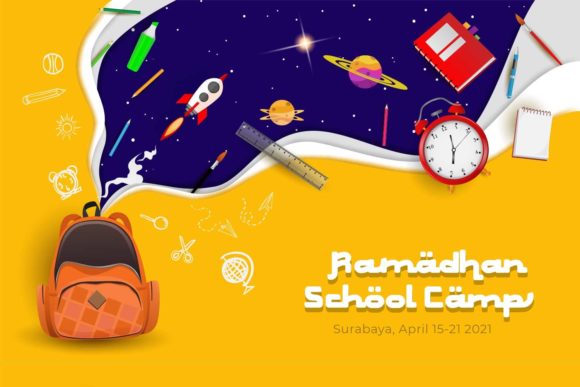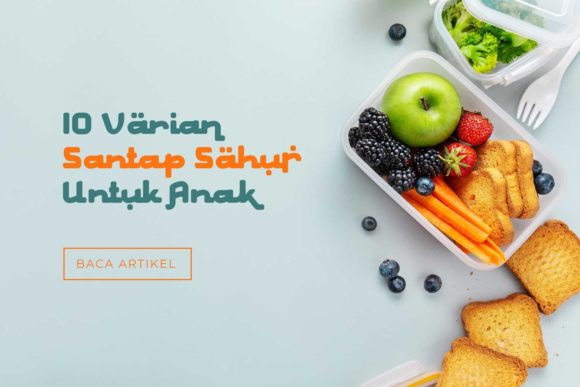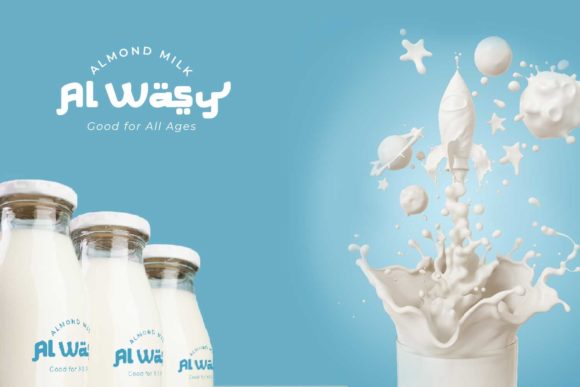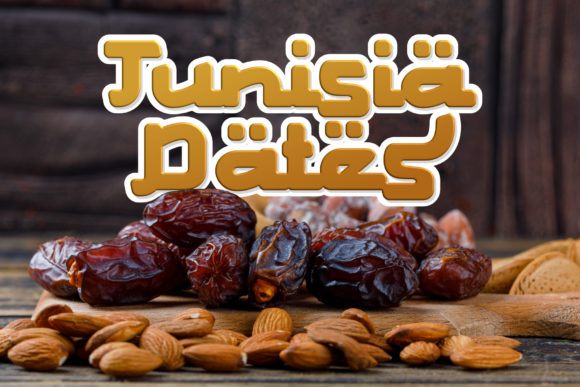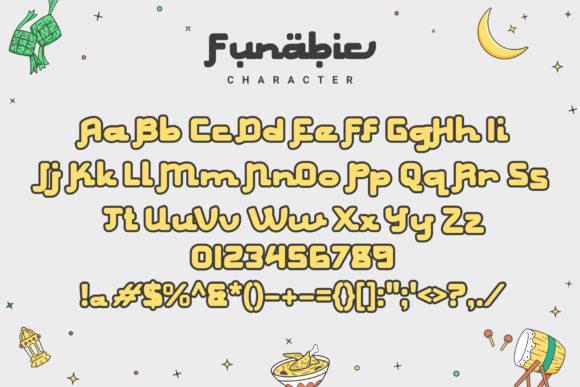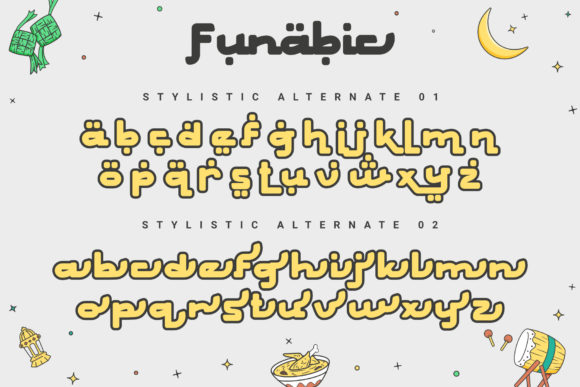
Introducing Funabic Font: Elevate Your Designs with Arabic Flair
In the realm of typography, a font can make or break a design. For designers and crafters looking to add a touch of elegance and uniqueness to their creations, the Funabic Font is an exciting discovery. This Arabic-styled display font is not only visually stunning but also highly versatile, thanks to its PUA (Private Use Area) encoding. In this article, we’ll dive into the world of Funabic Font, exploring its features, benefits, and how it can transform your designs.
What is Funabic Font?
Funabic Font is a distinctive, Arabic-inspired display font designed to add a flair of sophistication to any project. Its unique style is characterized by intricate details and elegant swashes, making it perfect for a variety of applications, from branding and advertising to packaging and digital media.
The Power of PUA Encoding
One of the standout features of Funabic Font is its PUA encoding. But what does this mean, and how does it benefit you? PUA encoding allows for the inclusion of additional glyphs and swashes within the font, which can be easily accessed and used in your designs. This means you have a wealth of creative options at your fingertips, enabling you to experiment with different styles and effects without needing multiple font files.
Key Features of Funabic Font
- Arabic Styled Display Font: Funabic boasts a unique, Arabic-inspired design that’s sure to capture attention.
- PUA Encoded: Easy access to all glyphs and swashes, giving you the flexibility to create stunning, one-of-a-kind designs.
- Multilingual Support: While specifically styled after Arabic typography, Funabic offers support for multiple languages, making it a versatile choice for global brands.
- Elegant Swashes: Add a professional touch to your designs with beautifully crafted swashes.
How to Use Funabic Font in Your Designs
- Experiment with Swashes: Don’t be afraid to try out different swashes to see what works best for your design.
- Mix and Match: Combine Funabic Font with other fonts for a unique contrast, or use it standalone for a bold statement.
- Play with Sizes: Funabic Font looks great in large display sizes but can also be effectively used in smaller sizes for body text or captions.
Who Can Benefit from Funabic Font?
Funabic Font is a valuable addition to any designer’s toolkit, regardless of their specific niche. Here are some professionals who can particularly benefit from this font:
- Graphic Designers: Looking for a unique font to make their designs stand out.
- Digital Artists: Seeking to add an elegant touch to their digital art.
- Crafters and Makers: Creating handmade products, such as jewelry, crafts, or textiles, and wanting to add a professional label or branding.
- Branding and Marketing Professionals: Needing a distinctive font for logos, advertisements, or marketing materials.
Funabic Font offers a unique blend of style, versatility, and creativity, making it an excellent choice for designers and crafters looking to elevate their projects. With its Arabic-inspired design, PUA encoding, and elegant swashes, Funabic is poised to become a go-to font for those seeking to add a touch of sophistication and flair to their designs. Whether you’re working on a branding project, digital art, or handmade crafts, Funabic Font is sure to inspire and enhance your creative endeavors.